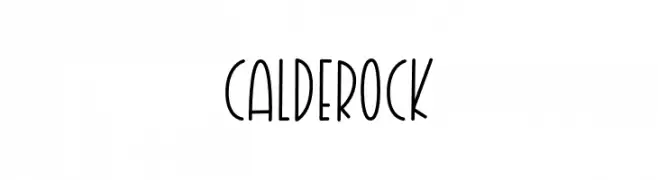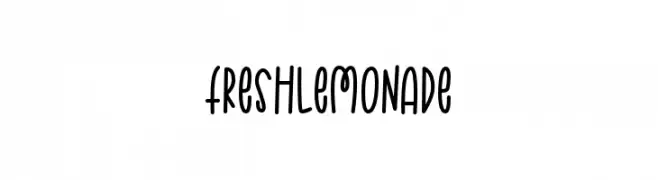
A modern cursive font with elegant, flowing characters.
A playful, bold, and rounded handwritten-style font.
A playful, casual handwritten font with smooth, rounded edges.
A lively and expressive script font with fluid strokes and dynamic style.
A playful, handwritten font with tall, narrow letters and a casual style.
A modern, elegant script font with fluid, handwritten strokes.
An elegant and sophisticated script font with flowing cursive strokes.
A playful, hand-drawn font with tall, narrow characters and a whimsical style.
A playful handwritten font with whimsical curls and loops.
A flowing, cursive font with an elegant, handwritten style.